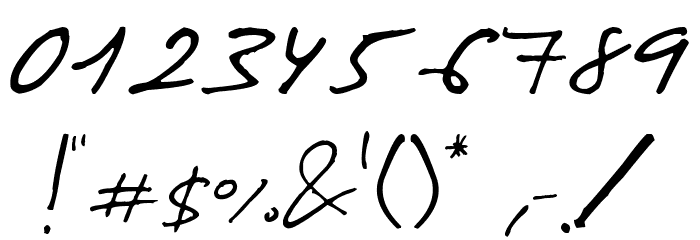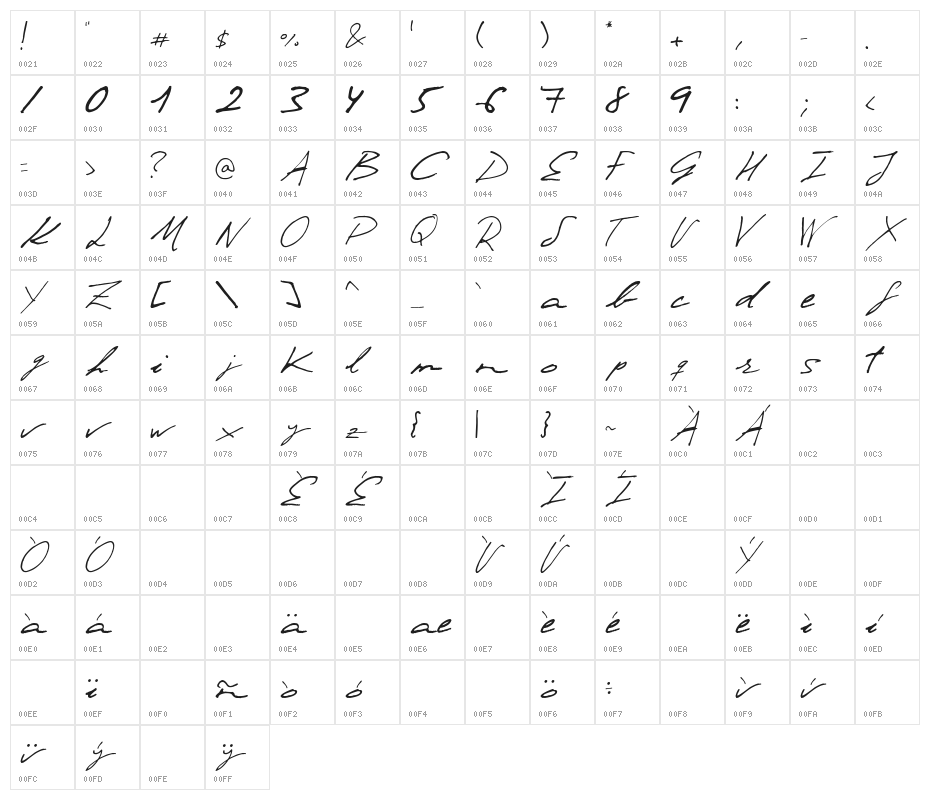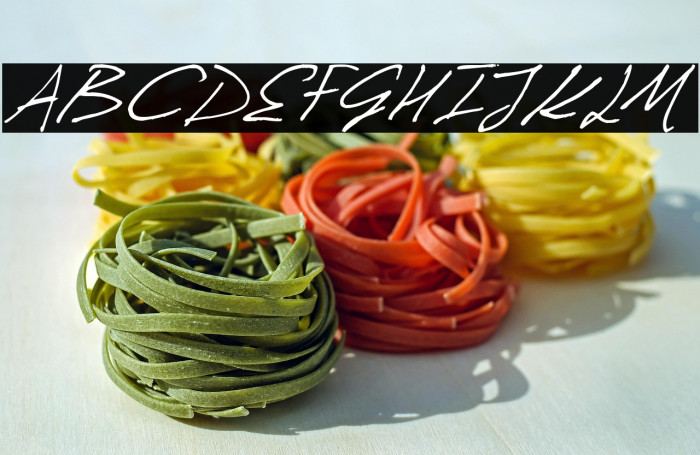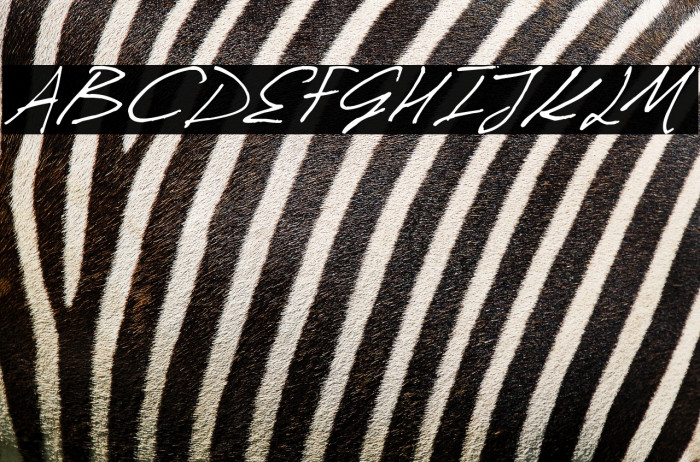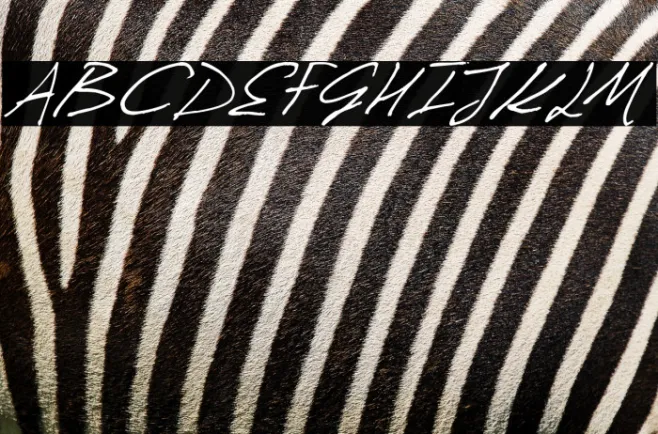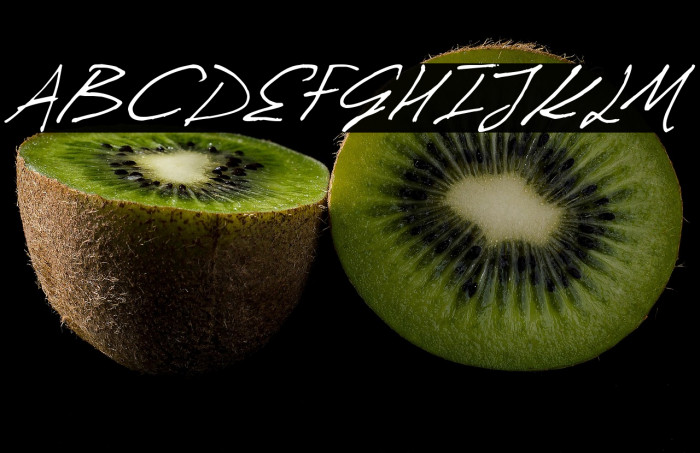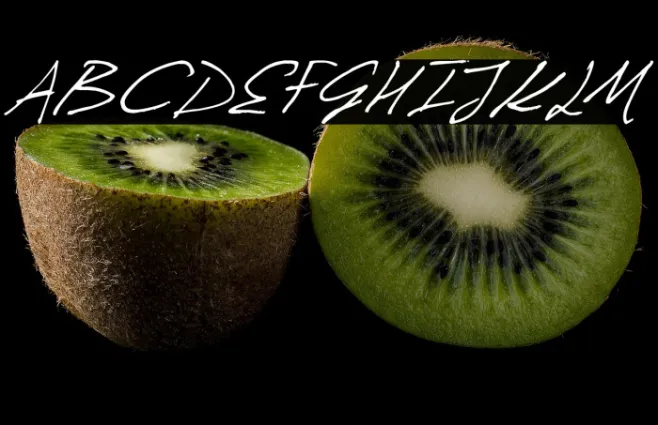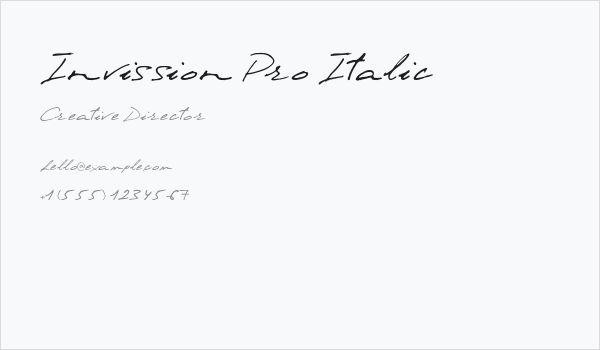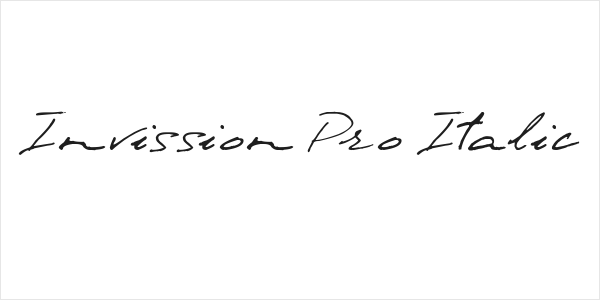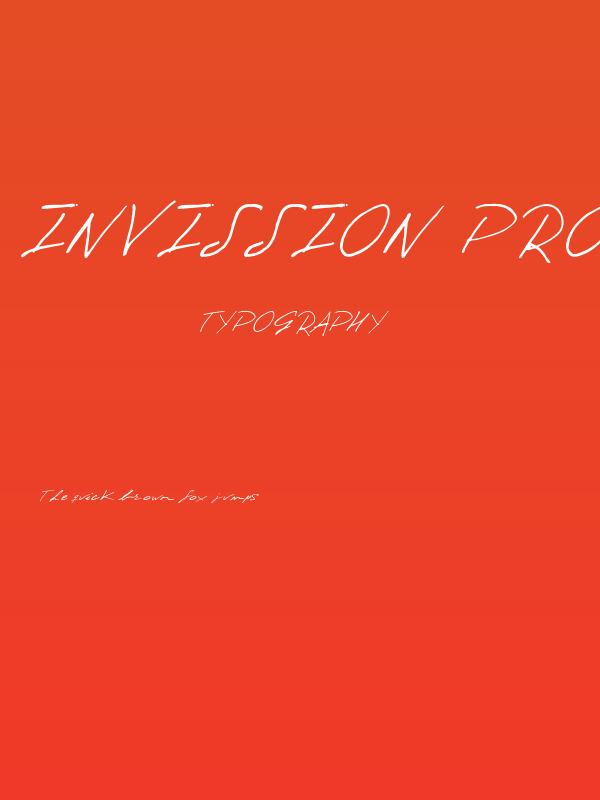
Invission Pro Italic Font
Invission Pro Italic Description
This font features a dynamic and fluid handwritten style, characterized by its elegant and flowing script. The letters are connected in a cursive manner, giving it a natural and personal touch. The strokes vary in thickness, adding a sense of movement and energy to the text. The uppercase letters are slightly more formal, while the lowercase letters maintain a casual and approachable feel. Numbers and special characters are designed to match the overall aesthetic, ensuring consistency throughout. This font is ideal for projects that require a personal or artistic touch, such as invitations, greeting cards, or branding materials.
Use CaseLogos, Headlines, Artistic projects
Proposed ProjectsIdeal for invitations, greeting cards, personal branding, and artistic projects.